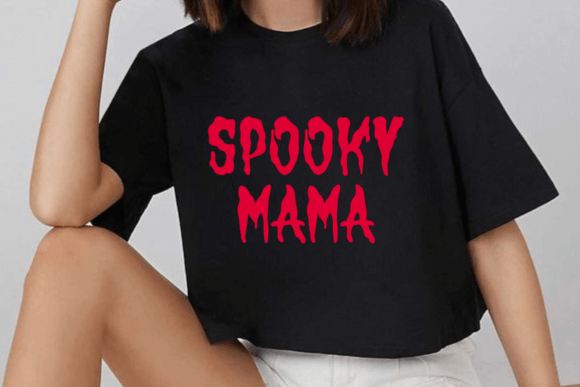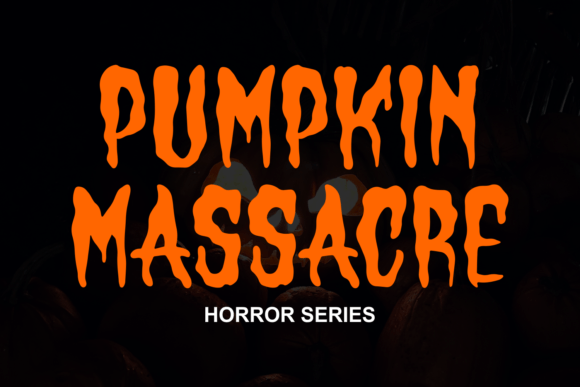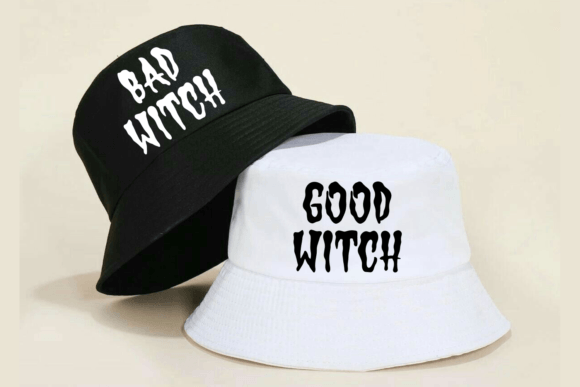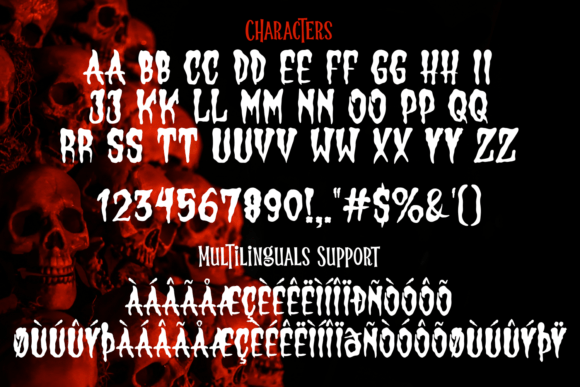
Introduction to Scary Walker Font
The Scary Walker font is a spooky Halloween typeface with jagged edges and uneven letters.
It looks like itโs dripping and crawling, perfect for creating eerie, unsettling messages .
Key Features of Scary Walker Font
Why Choose Scary Walker Font?